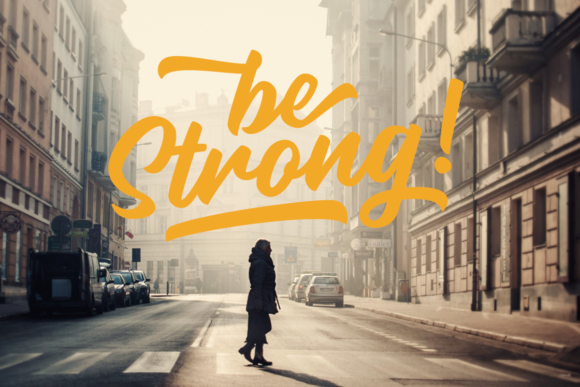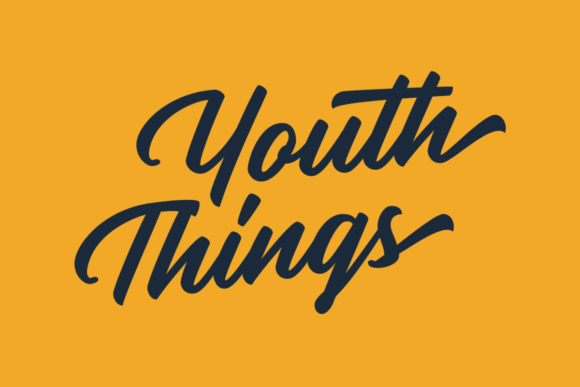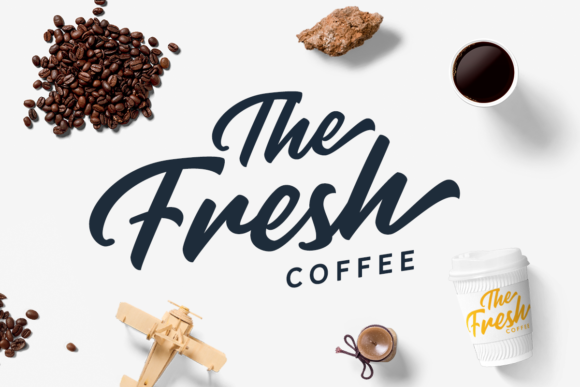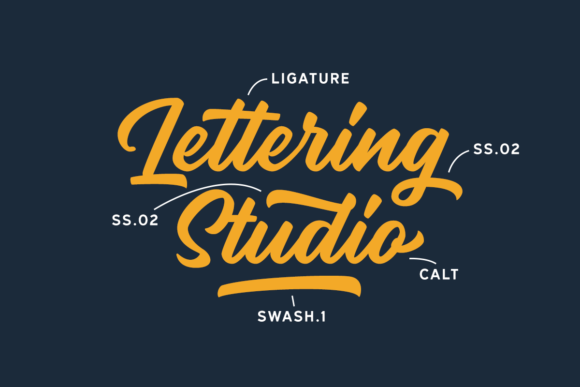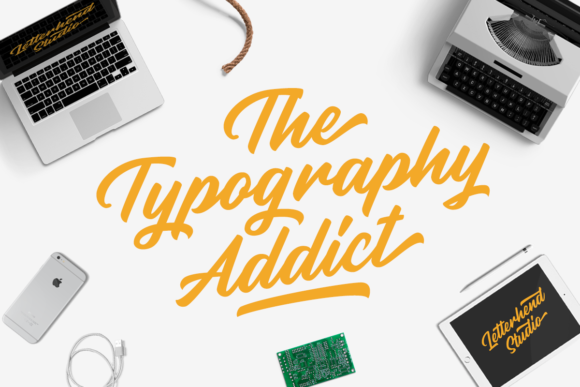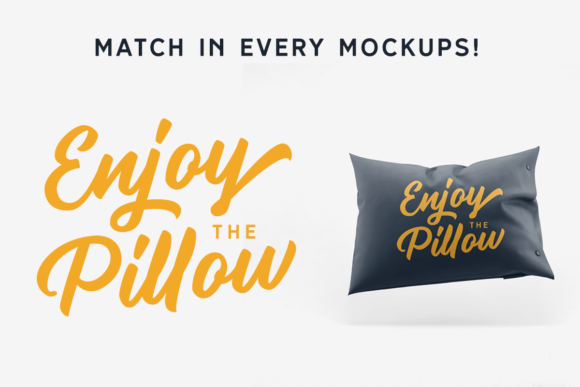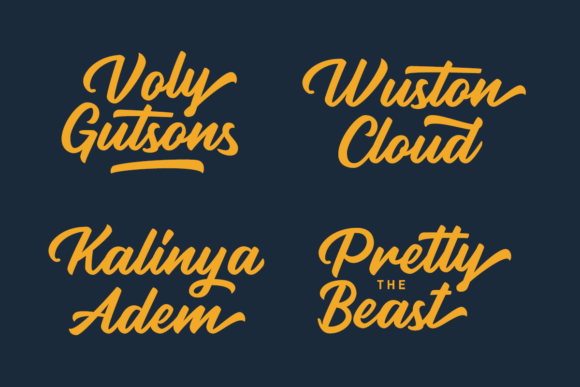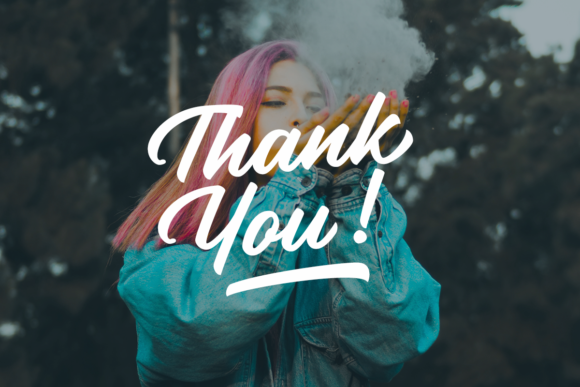
HomeScript FontsRupture Duo Font Script Fonts Rupture Duo Font FacebookXPinterestWhatsApp Rupture Duo Font Poster 2 Rupture Duo Font Poster 3 Rupture Duo Font Poster 4 Rupture Duo Font Poster 5 Rupture Duo Font Poster 6 Rupture Duo Font Poster 7 Rupture Duo Font Poster 8 Rupture Duo Font Poster 9 About Rupture Duo Font Rupture is a strong and bold script, perfect for adding a unique vintage spin on any design idea! DOWNLOAD NOW People also explored Dalgona Font Happy Wednesday Font Sweet Pluto Font Montiwa Font Croffle Font Babyshine Font Gloria Font Blossom Heart Font Grettila Font 308 0 TagsRupture Duo Font Previous articleSilent Asia FontNext articleBlack Ocean Font LEAVE A REPLY Cancel reply Comment: Please enter your comment! Name:* Please enter your name here Email:* You have entered an incorrect email address! Please enter your email address here Website: Save my name, email, and website in this browser for the next time I comment. Personal Use Free Micahel Personal Use Free Read more about this font Nickainley Personal Use Free Read more about this font Autumn Flowers Font Personal Use Free Read more about this font Talking on Personal Use Free Read more about this font BLOG Best Fonts for YouTube Videos: Make Your Thumbnails Stand Out Best Fonts for YouTube Videos: Make Your Thumbnails Stand Out Choosing the right font can make a massive difference in how your YouTube videos perform.... To increase your work productivity, choose the most readable fonts. Where to Buy American Fonts Online in 2024 How to Install and Use Fonts on Windows, macOS, and Web Projects